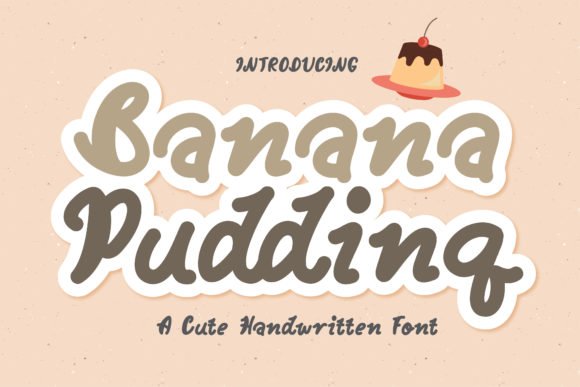
The Perfect Scoop of Creativity
Have you ever found yourself doodling in a notebook, trying to capture the perfect handwritten feel for a design project? You’re not alone. Many designers have been there, searching for the perfect font to bring their ideas to life. For those who have been on this quest, we have some exciting news – we’ve discovered the secret ingredient to adding a touch of sweetness to your designs: the Banana Pudding Font.
This charming handwritten font is more than just a pretty face. Its natural, unique style makes it the perfect addition to a wide range of designs, from wedding invitations to logos and business cards. With its friendly demeanor, Banana Pudding Font adds a customized touch that sets your designs apart from the rest.
Banana Pudding Font Key Features
- Font Family: Banana Pudding Font is a script font, perfect for adding a touch of whimsy and elegance to your designs.
- Unique Characteristics: This script font features a playful, handwritten style with subtle imperfections, giving it a unique and organic feel.
Designer Review: Banana Pudding Font
Overall, I have mixed feelings about the Banana Pudding Font. Here are my thoughts:
- Unique and playful aesthetic: The font has a charming, hand-drawn quality that could add a touch of whimsy to designs.
- Customizable: The font offers a range of options for adjusting size, color, and style, making it easy to tailor to specific design needs.
- Legible: Despite its decorative nature, the font remains legible even at smaller sizes.
- Limited font weights and styles: The font only comes in a few weights and styles, which may limit its versatility in certain design applications.
- Not ideal for body text: Due to its decorative nature, the font may not be the best choice for large blocks of body text, where readability is crucial.
- Lack of language support: The font may not support certain languages or character sets, which could be a limitation in international design projects.
While the Banana Pudding Font has its charm, its limitations may make it less suitable for certain design projects. However, with careful selection and styling, it could still be a great choice for adding a touch of personality to designs.
The Banana Pudding Font is perfect for adding a playful and whimsical touch to your designs. Some common use cases include:
- Casual blogs and websites
Remember to experiment with different font sizes and colors to get the most out of this fun and unique font.